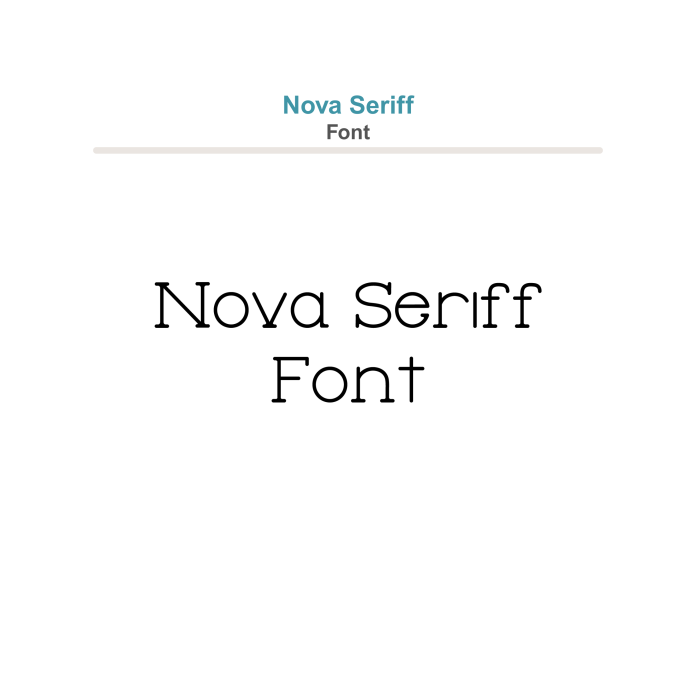
Nova Seriff Font is a clean and quirky serif typeface with rounded terminals and a friendly, slightly narrow structure. Its playful curves and balanced spacing make it perfect for adding charm to cards, planners, gift tags, labels, and home decor. The simple line strokes ensure easy cutting with vinyl or cardstock and smooth results for print-and-cut projects. Whether you're crafting for everyday or special occasions, this font brings a soft, handcrafted feel to your designs.